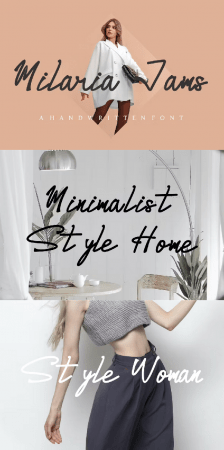
Introducing our new product the name is **Milaria Jams Handwritten Font **. Modern Decorative Fonts that feels beautiful classy, elegant, and modern. This font is perfectly suited for a wide variety of projects, such as signature, stationery, logo, wedding, typography quotes, magazine or book cover, website header, branding, packaging design, and more. Also, fashion-related branding or editorial design displays both masculine and feminine qualities.